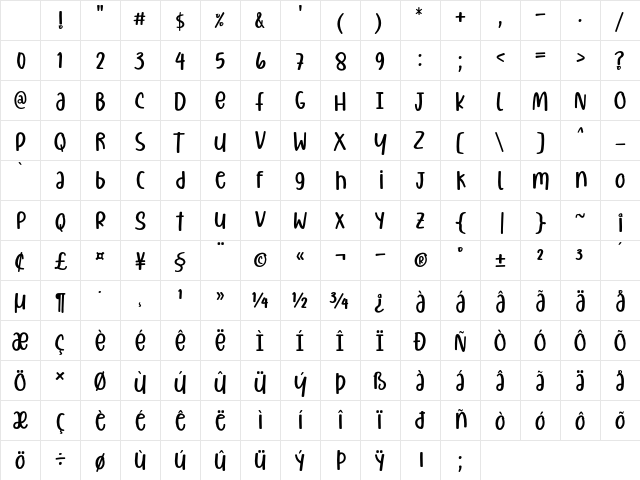
Complete Christiany Regular glyph index. Displaying only characters natively supported by Christiany Regular font.
Christiany is a composed and adaptable typeface that performs quietly and consistently across a wide range of design contexts.